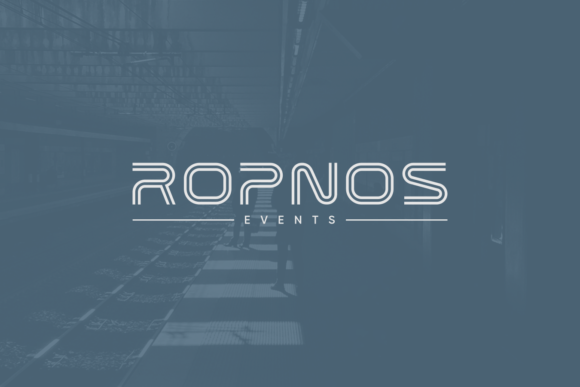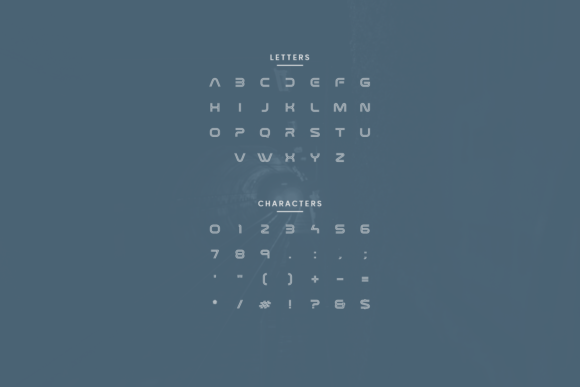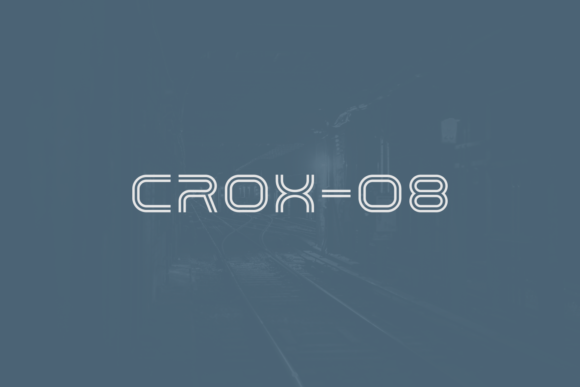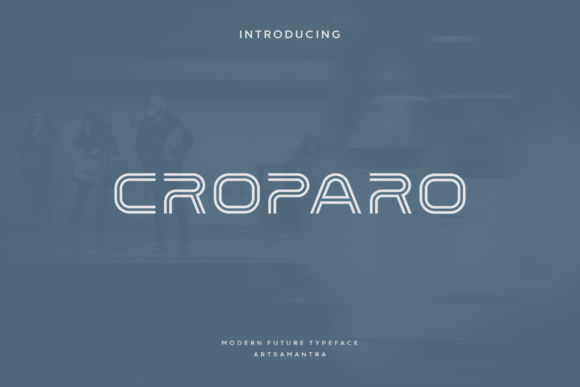
Croparo Font: Elevate Your Designs with a Futuristic and Modern Twist
In the world of design, typography plays a crucial role in conveying the message and aesthetic of a project. With numerous fonts available, finding the perfect one that embodies both style and sophistication can be a daunting task. However, if you’re looking to add a futuristic and modern touch to your designs, look no further than the Croparo Font. This unique all-caps based font is designed to make your creations stand out with its clean, elegant, and sophisticated appeal.
What is Croparo Font?
Croparo Font is a distinctive typeface that boasts a simple yet futuristic design. Its all-caps structure gives it a commanding presence, making it ideal for a variety of design applications where impact and legibility are key. The font’s clean lines and elegant curves ensure that it remains versatile, suitable for projects that demand a modern aesthetic without compromising on readability.
Key Features of Croparo Font
- All-Caps Design: The font’s all-caps structure lends it a strong and assertive voice, perfect for headlines, titles, and statements that need to make an impact.
- Futuristic and Modern Aesthetic: Croparo’s design elements give it a distinctly futuristic feel, making it an excellent choice for projects that aim to convey innovation, technology, or forward-thinking.
- Clean and Elegant: Despite its bold and futuristic appearance, the font maintains a level of elegance and sophistication, ensuring it can be used across a range of design projects, from corporate to creative.
- Versatility: Croparo Font is highly versatile, suitable for various design applications including logo designs, posters, magazines, and headlines.
Use Cases for Croparo Font
The versatility of Croparo Font makes it an excellent addition to any designer’s toolkit. Here are some of the best use cases for this unique font:
- Logo Designs: The distinctive and modern look of Croparo Font makes it perfect for logos that need to stand out and convey a sense of innovation or forward-thinking.
- Posters and Flyers: For promotional materials, Croparo’s impact and legibility make it an excellent choice for headlines and titles.
- Magazines and Editorials: Use Croparo to add a touch of modernity to article titles, section headings, or even as a pull quote font.
- Headlines and Titles: Whether for web or print, Croparo Font is ideal for creating compelling headlines that capture attention.
Why Choose Croparo Font?
In a sea of fonts, Croparo stands out for several reasons:
- Uniqueness: Its distinctive design ensures your projects won’t go unnoticed.
- Legibility: Despite its stylized appearance, Croparo maintains high legibility, making it practical for a wide range of applications.
- Flexibility: It can be used for both digital and print projects, offering flexibility in your design work.
Croparo Font offers a unique blend of futuristic appeal, elegance, and versatility, making it an invaluable resource for designers looking to elevate their projects. Whether you’re creating a logo, poster, magazine, or any other design that needs a modern edge, Croparo is an excellent choice. Its clean design, combined with its sophisticated look, ensures that your designs not only look contemporary but also stand out in a crowded design landscape. With Croparo Font, you can confidently create stunning designs that are both visually appealing and effectively communicative.